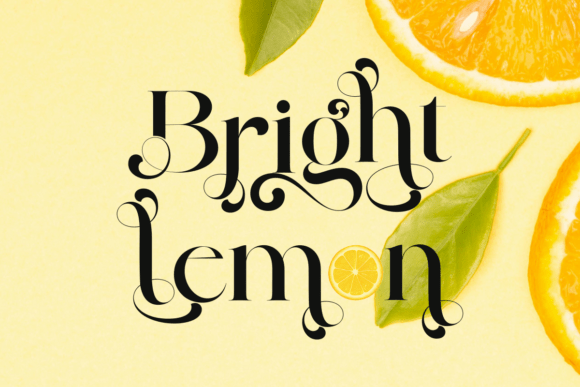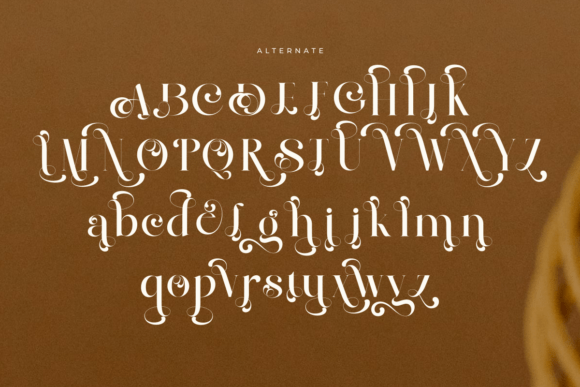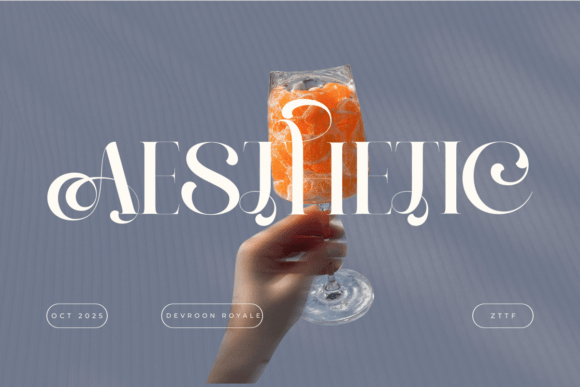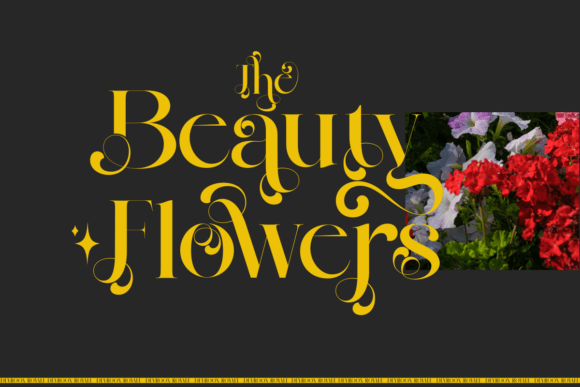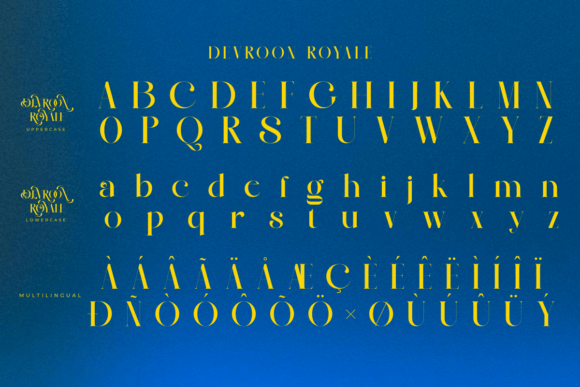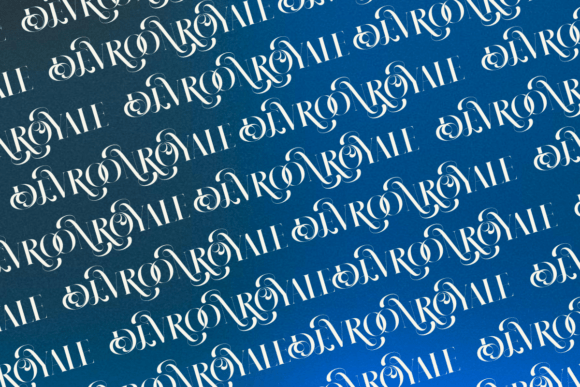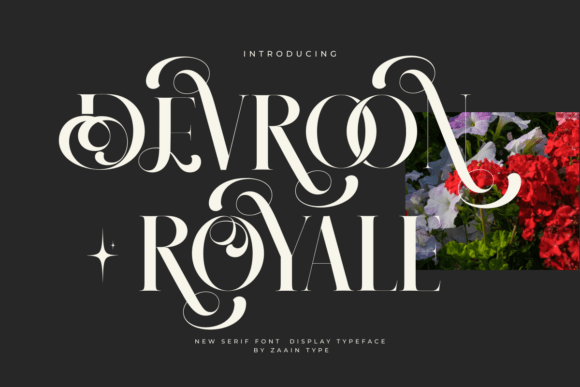
Introducing Devroon Royale: The Epitome of Luxurious Typography
In the realm of typography, few fonts manage to convey the essence of luxury, elegance, and grandeur as effectively as Devroon Royale. This stunning display serif font is meticulously crafted to evoke a sense of classic prestige, making it an ideal choice for designers and crafters seeking to infuse their projects with a touch of sophistication and refinement.
A Timeless Serif Typeface
Devroon Royale is a masterfully designed serif typeface that embodies the perfect balance of strength and delicacy. Its refined contrast between thick and thin strokes, elegant curves, and stately proportions make it a versatile font suitable for a wide range of applications, from luxury branding and editorials to invitations and high-end packaging.
Key Features of Devroon Royale
• High Contrast Strokes: The font’s high contrast strokes create a dramatic and elegant effect, perfect for headlines, titles, and other display text.
• Ornamental Swirls: The intricate swirls and flourishes add an extra layer of sophistication and luxury to the font, making it ideal for high-end branding and editorial design.
• Sharp Serifs: The sharp serifs provide a sense of precision and refinement, lending the font an air of classic elegance.
• PUA Encoding: Thanks to PUA encoding, the entire character set is accessible without needing specialized design programs, making it easy to use and incorporate into various projects.
Perfect for High-End Design Projects
Devroon Royale is specifically designed for high-end design projects where luxury and sophistication are paramount. Its regal and refined appearance makes it an excellent choice for:
• Luxury Branding: Create a lasting impression with a font that exudes elegance and refinement, perfect for high-end fashion, hospitality, and lifestyle brands.
• Editorial Design: Add a touch of sophistication to your editorial projects, such as magazines, newspapers, and books, with a font that commands attention and respect.
• Fashion Campaigns: Elevate your fashion campaigns with a font that embodies the essence of high-end fashion, perfect for luxury brands and designer labels.
• Luxe Invitations: Make a statement with elegant and refined invitations that set the tone for exclusive events and experiences.
Why Choose Devroon Royale?
In a world where typography plays a crucial role in shaping brand identity and aesthetic, Devroon Royale stands out as a beacon of luxury and sophistication. Here are just a few reasons why designers and crafters should consider adding Devroon Royale to their typographic arsenal:
• Timeless Elegance: Devroon Royale is a font that will never go out of style, ensuring that your designs remain relevant and elegant for years to come.
• Versatility: The font’s versatility makes it suitable for a wide range of applications, from digital design to print materials.
• Attention to Detail: The meticulous craftsmanship that has gone into creating Devroon Royale ensures that every character is a masterpiece of typographic design.
Devroon Royale is a luxurious display serif font that embodies the essence of elegance, grandeur, and sophistication. Its refined contrast, elegant curves, and stately proportions make it the perfect choice for designers and crafters seeking to create high-end designs that exude luxury and refinement. With its PUA encoding and versatility, Devroon Royale is an excellent addition to any design project, ensuring that your typography is always on point.